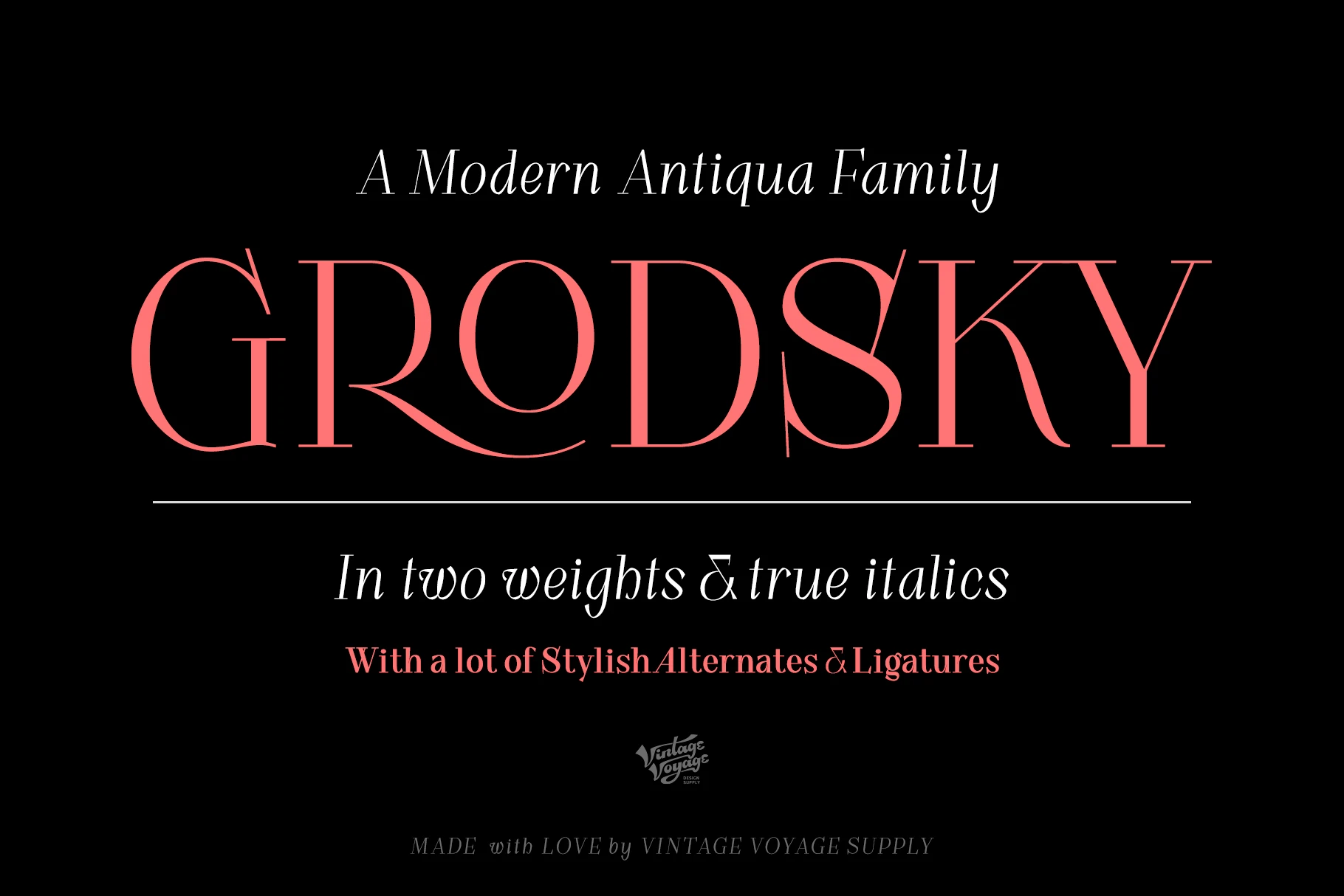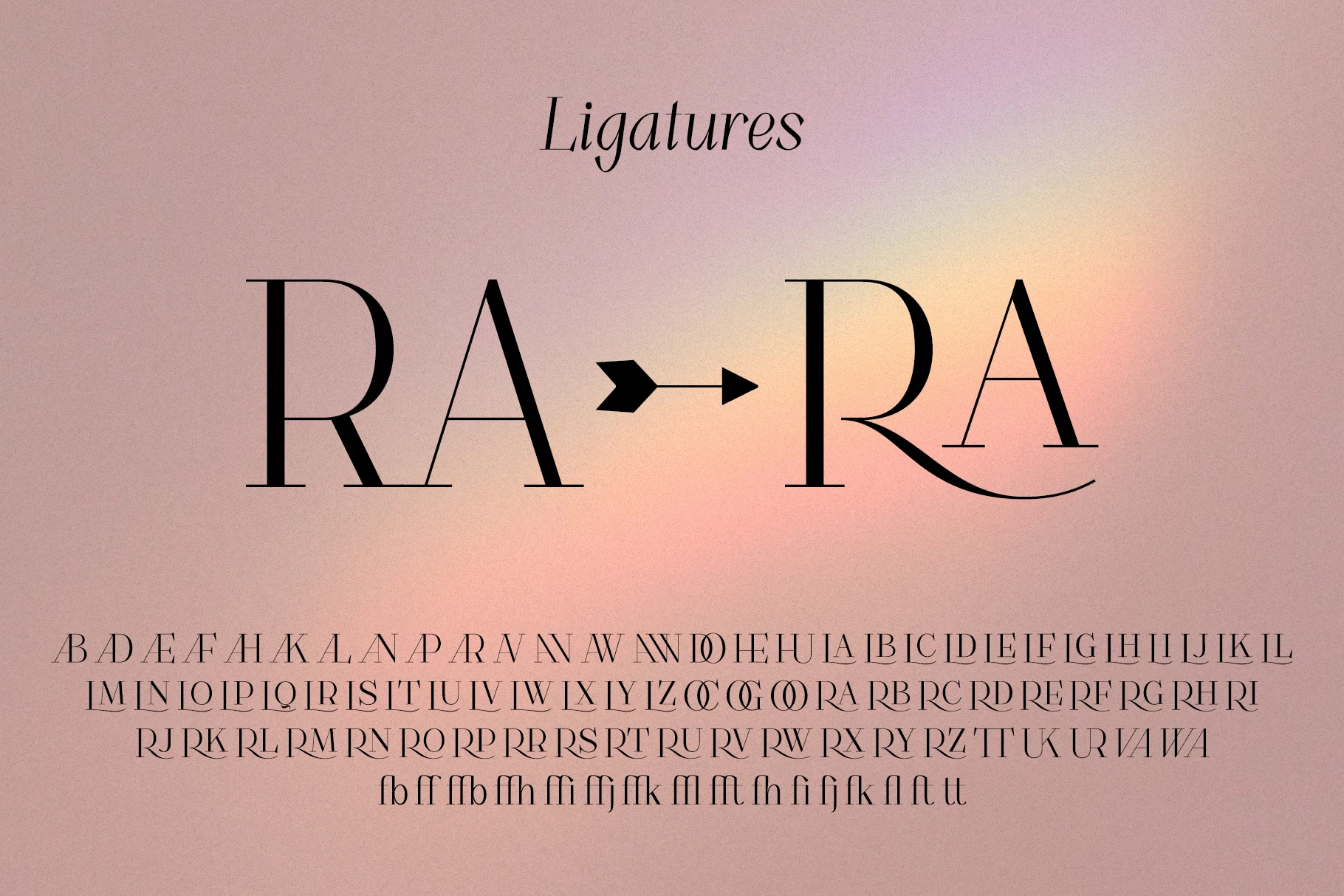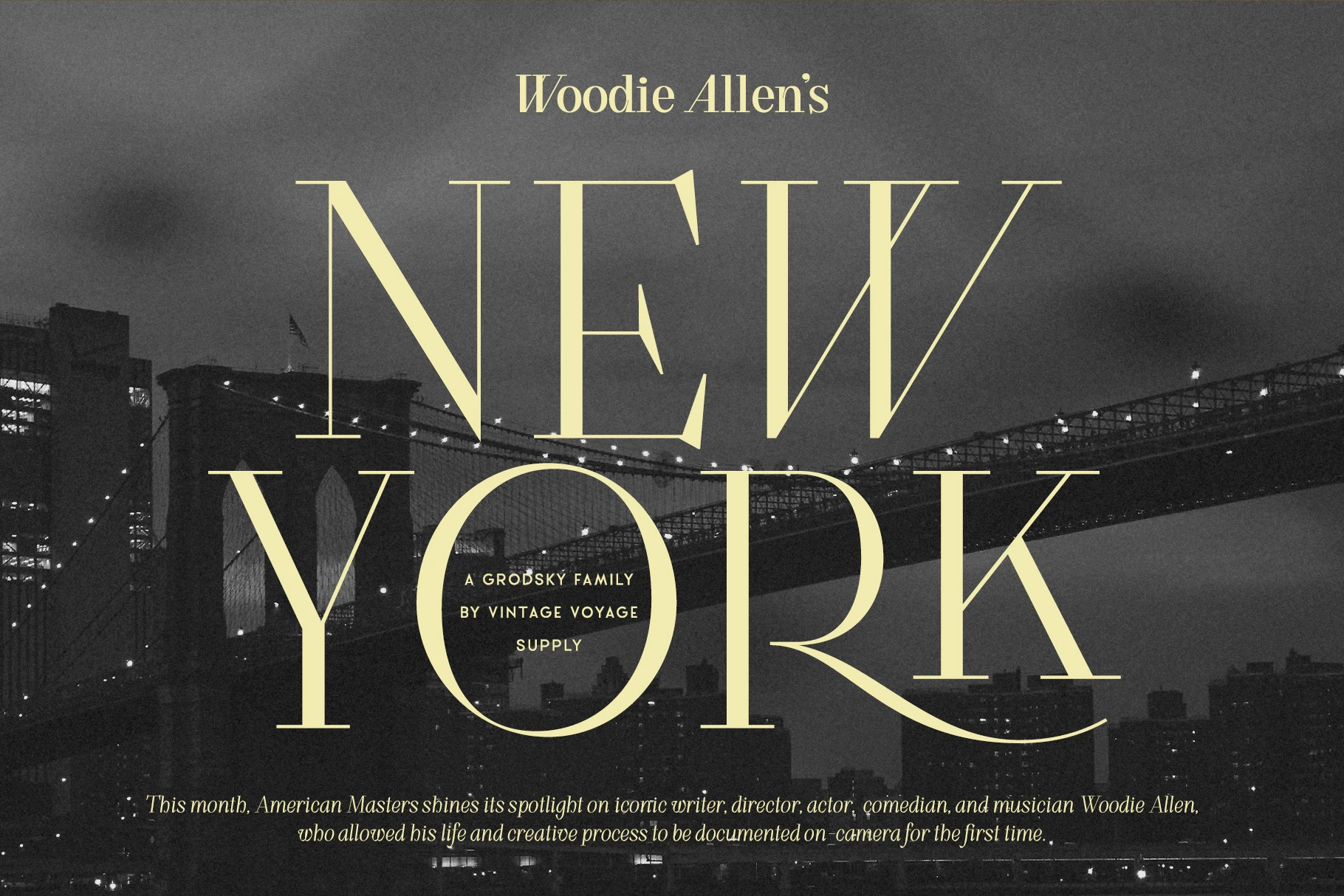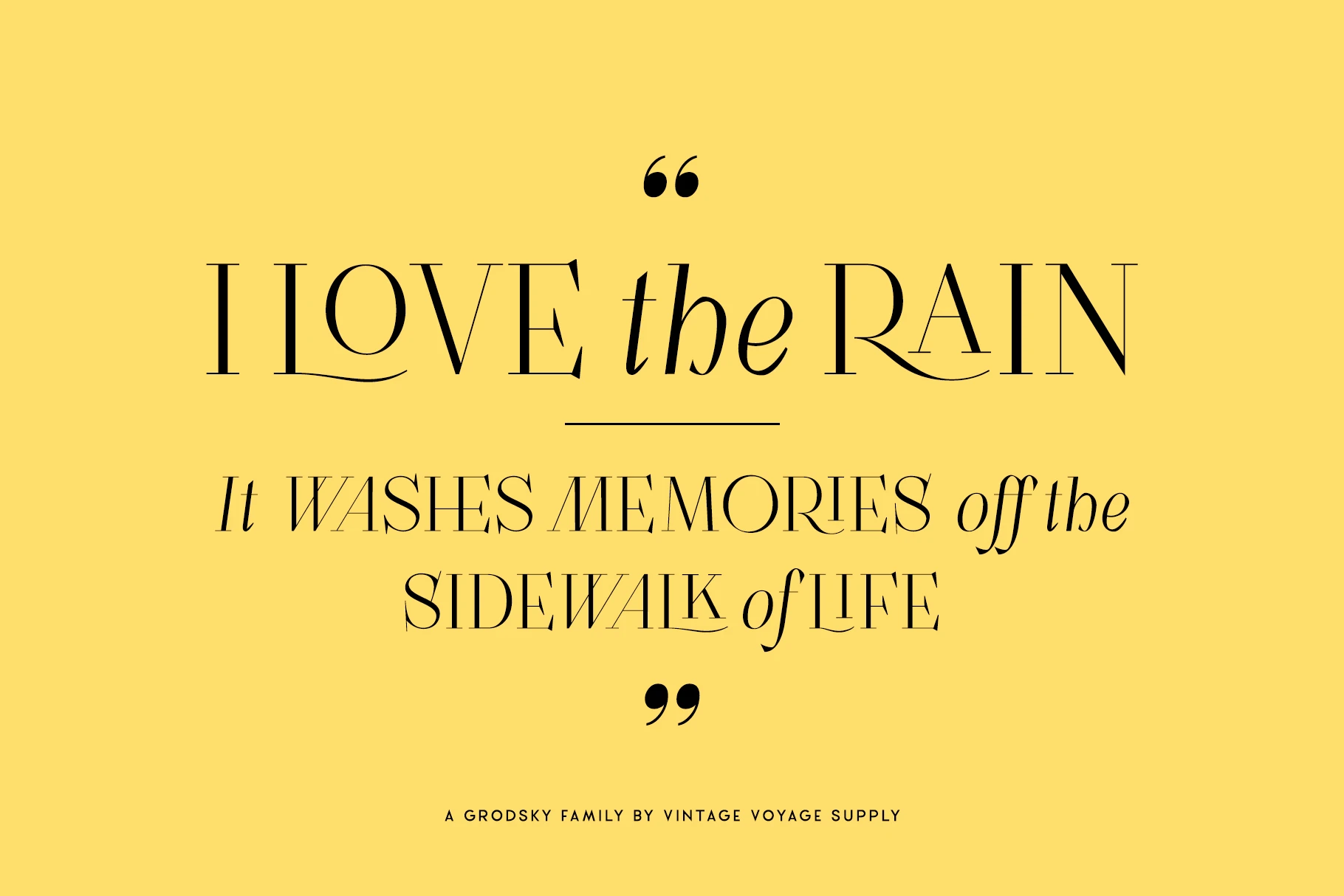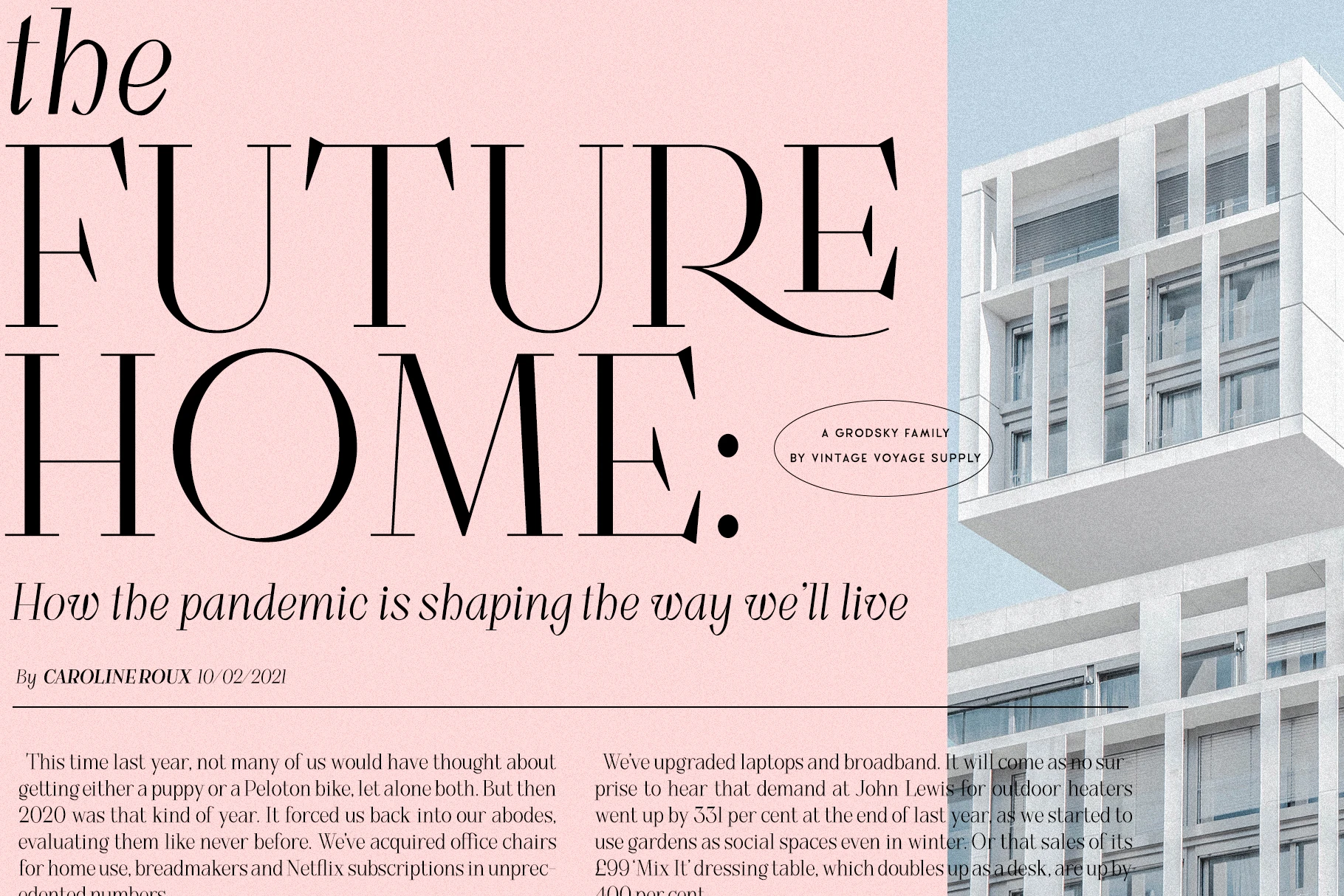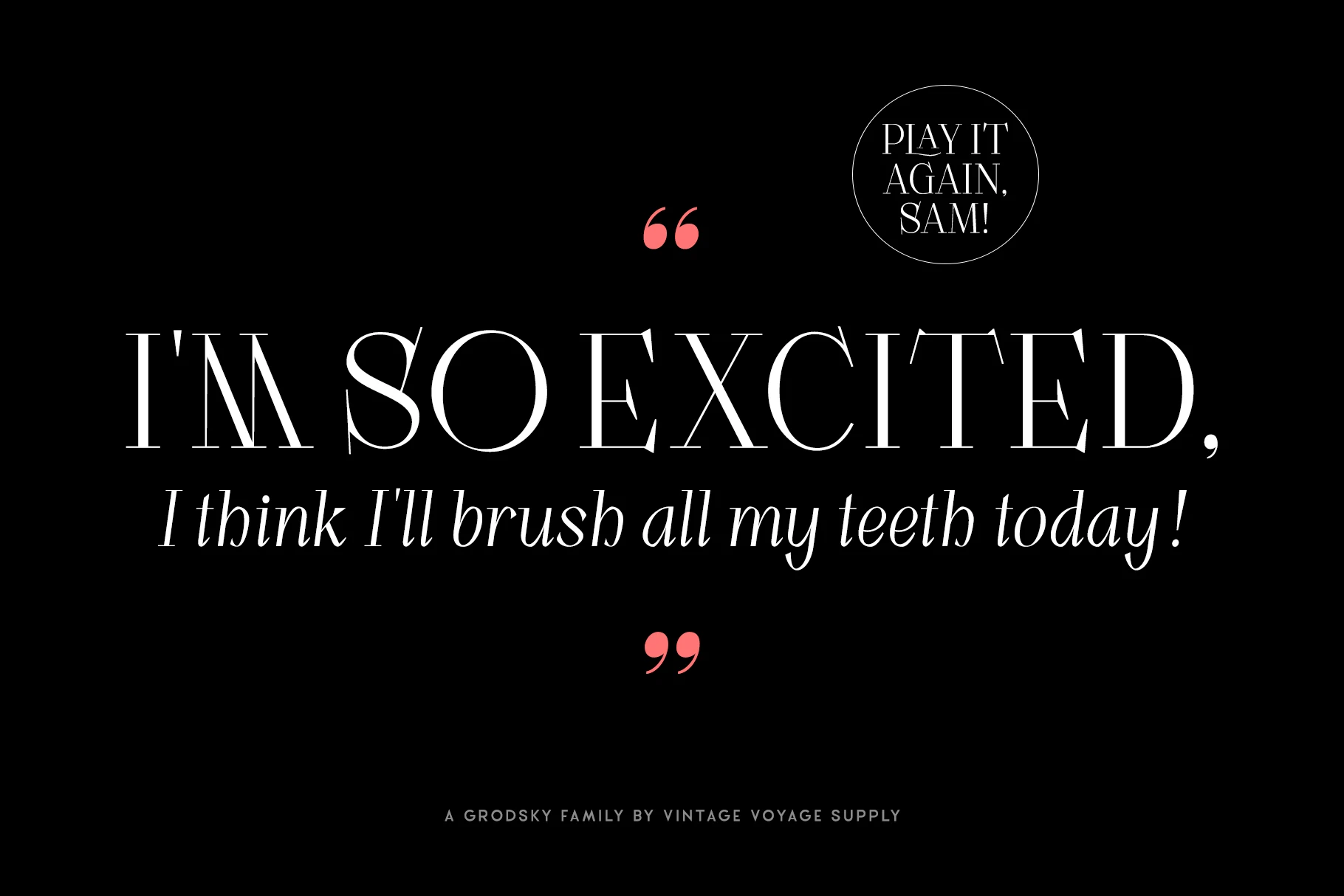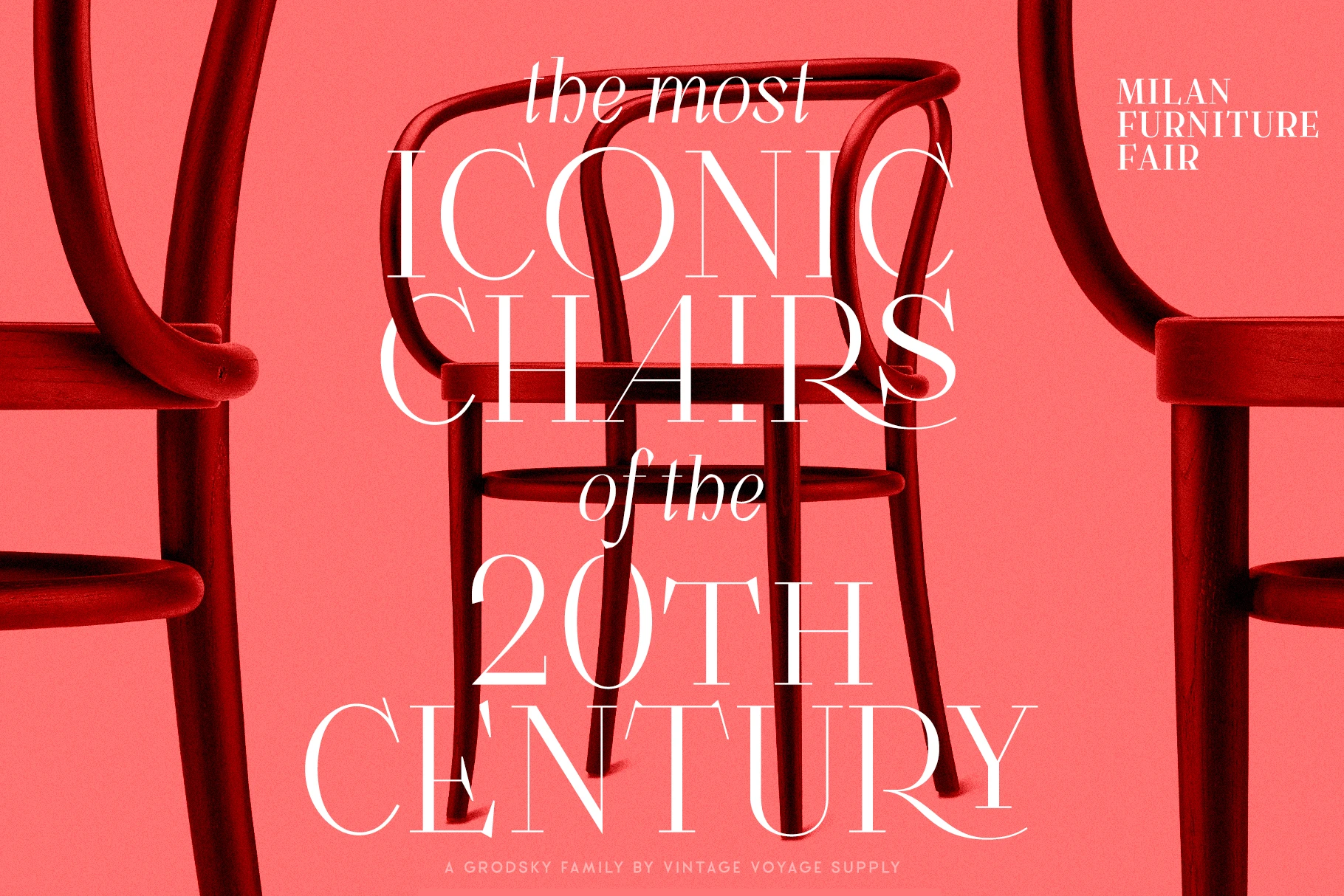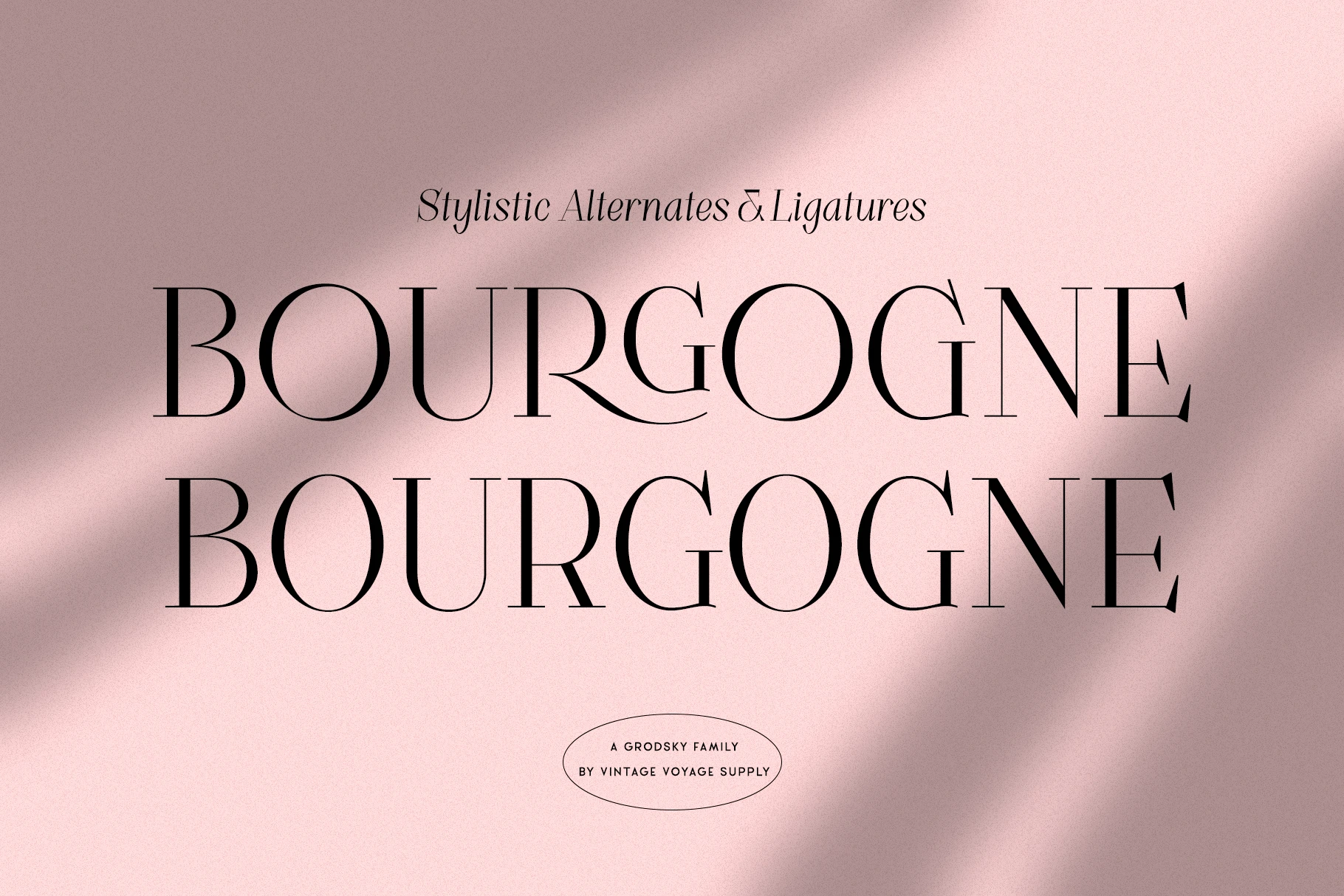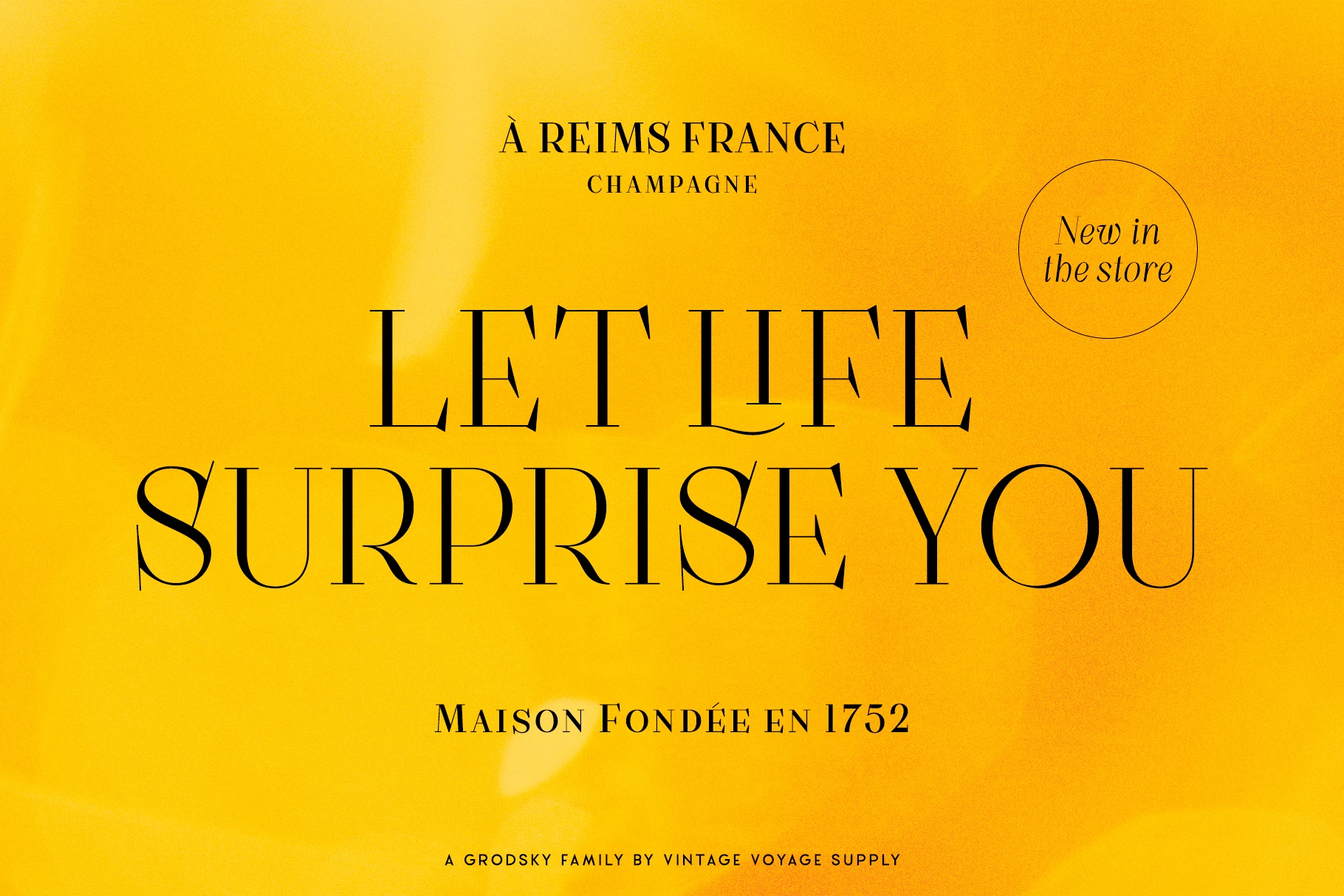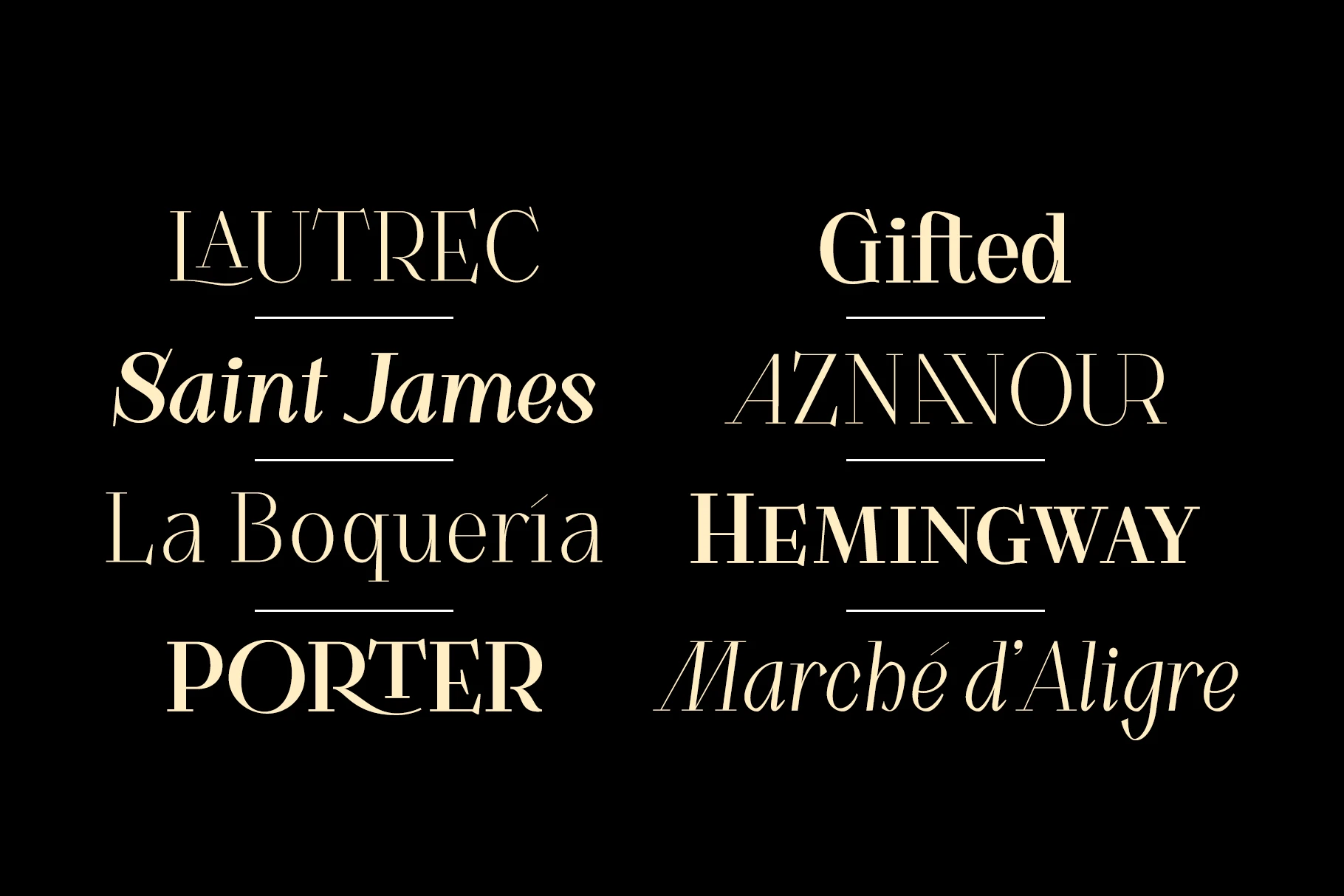
Grodsky Font Family
Grodsky is a modern high-contrast Antiqua typeface with strong, recognizable features. Inspired by classic typefaces from the early 20th century, it blends sharp geometry with flowing curves and pronounced serifs. Includes stylistic alternates, ligatures, true small caps, oldstyle and modern figures, fractions, and tabular numerals. Designed for both headlines and body text, offering flexibility across editorial, branding, and display work. Available in two weights with true italics. Built for timeless, refined typography with a bold presence.
• Chinese Pinyin
• Common Ligatures
• Fractions
• Lining Numerals
• Old Style Numerals
• Ordinal Numerals
• Proportional Numerals
• Small Capitals
• Small Capitals for Capitals
• Stylistic Alternates
• Stylistic Sets
• Superscript
• Tabular Numerals